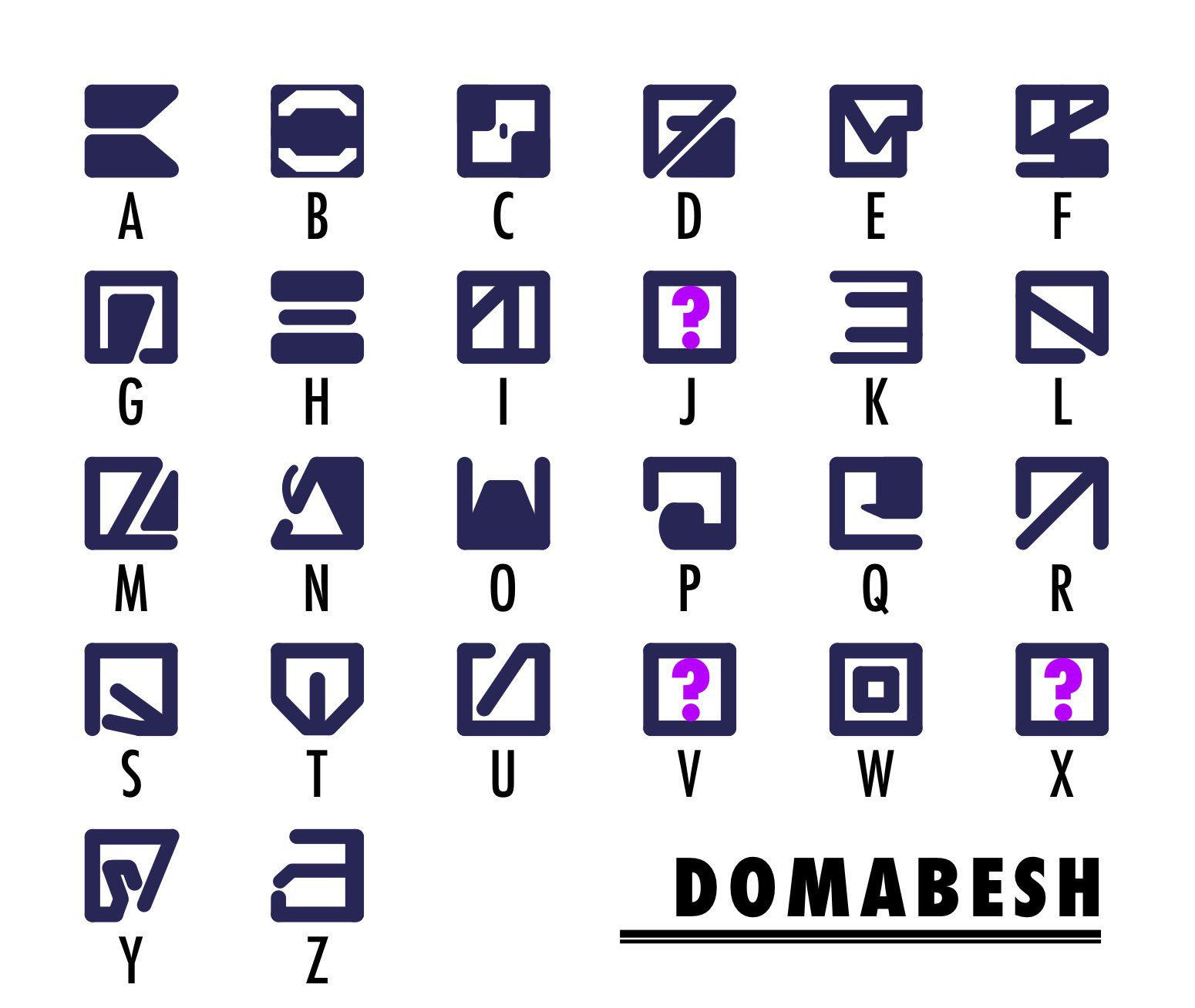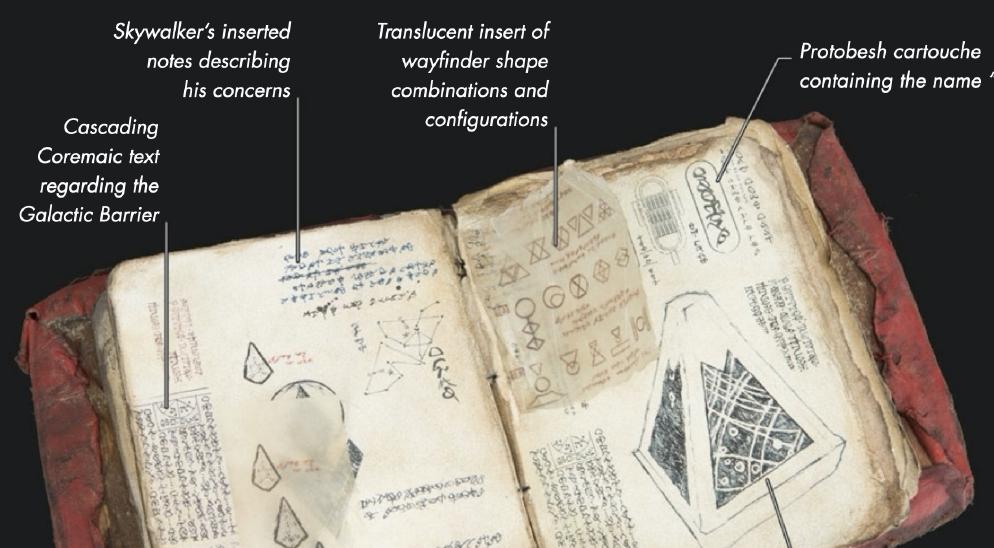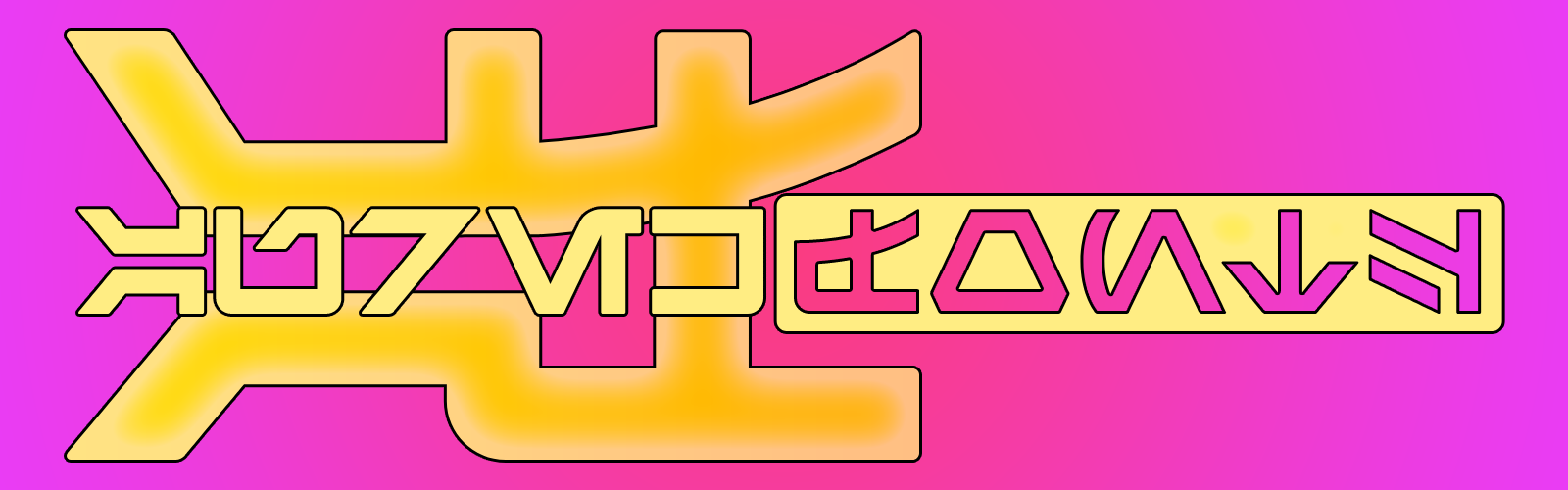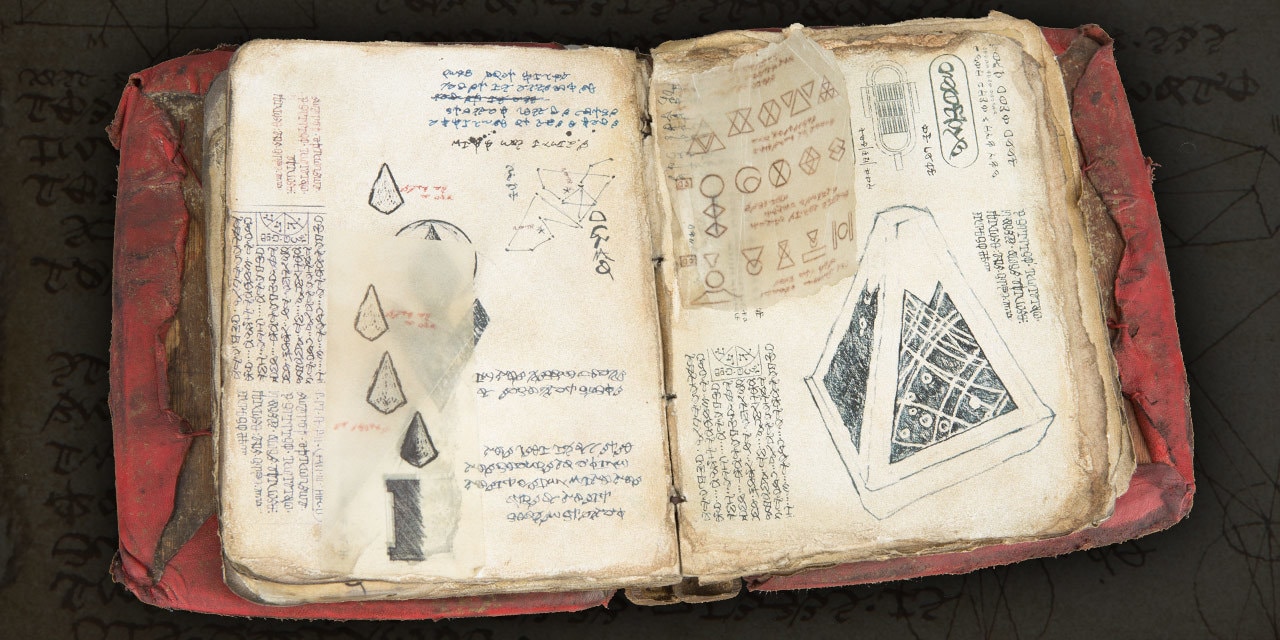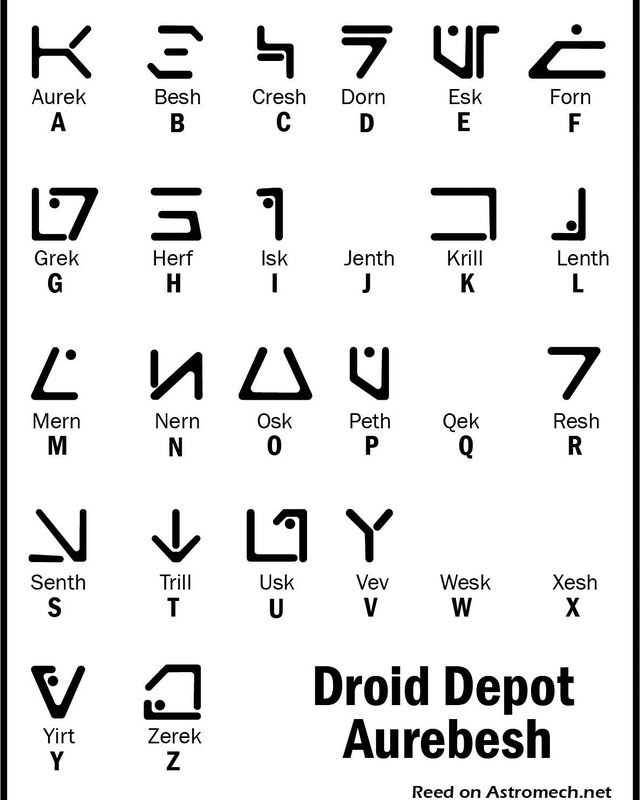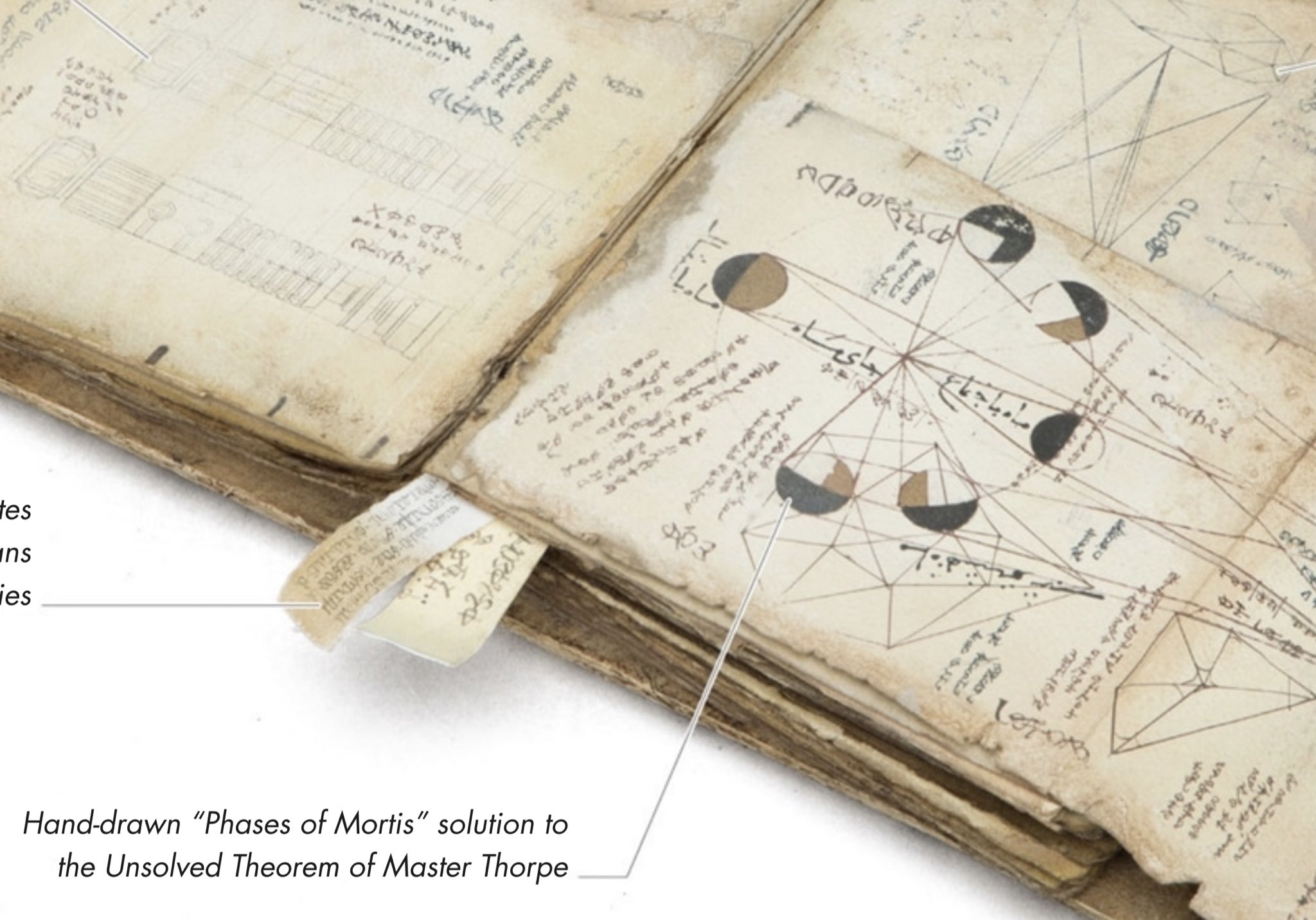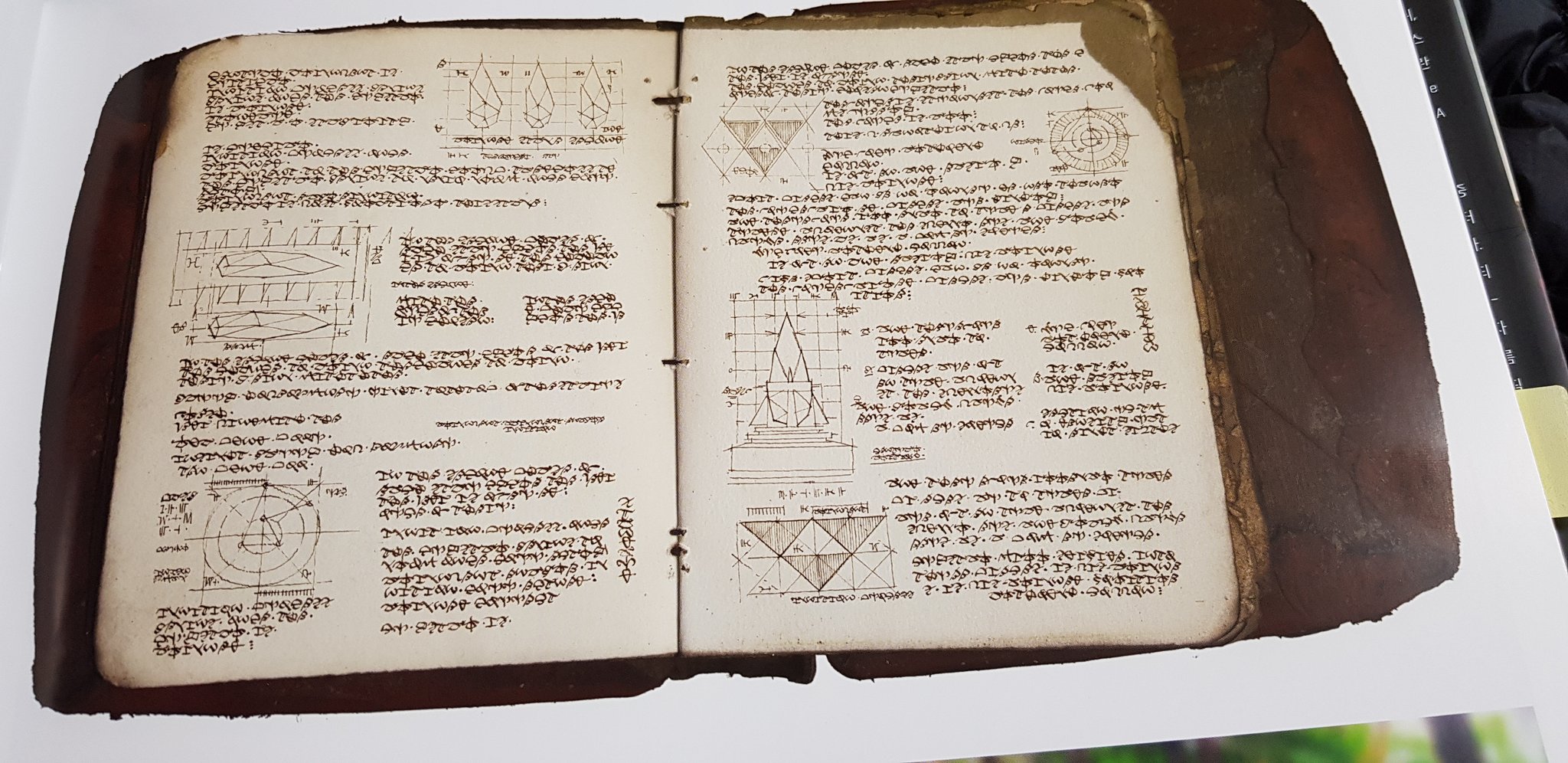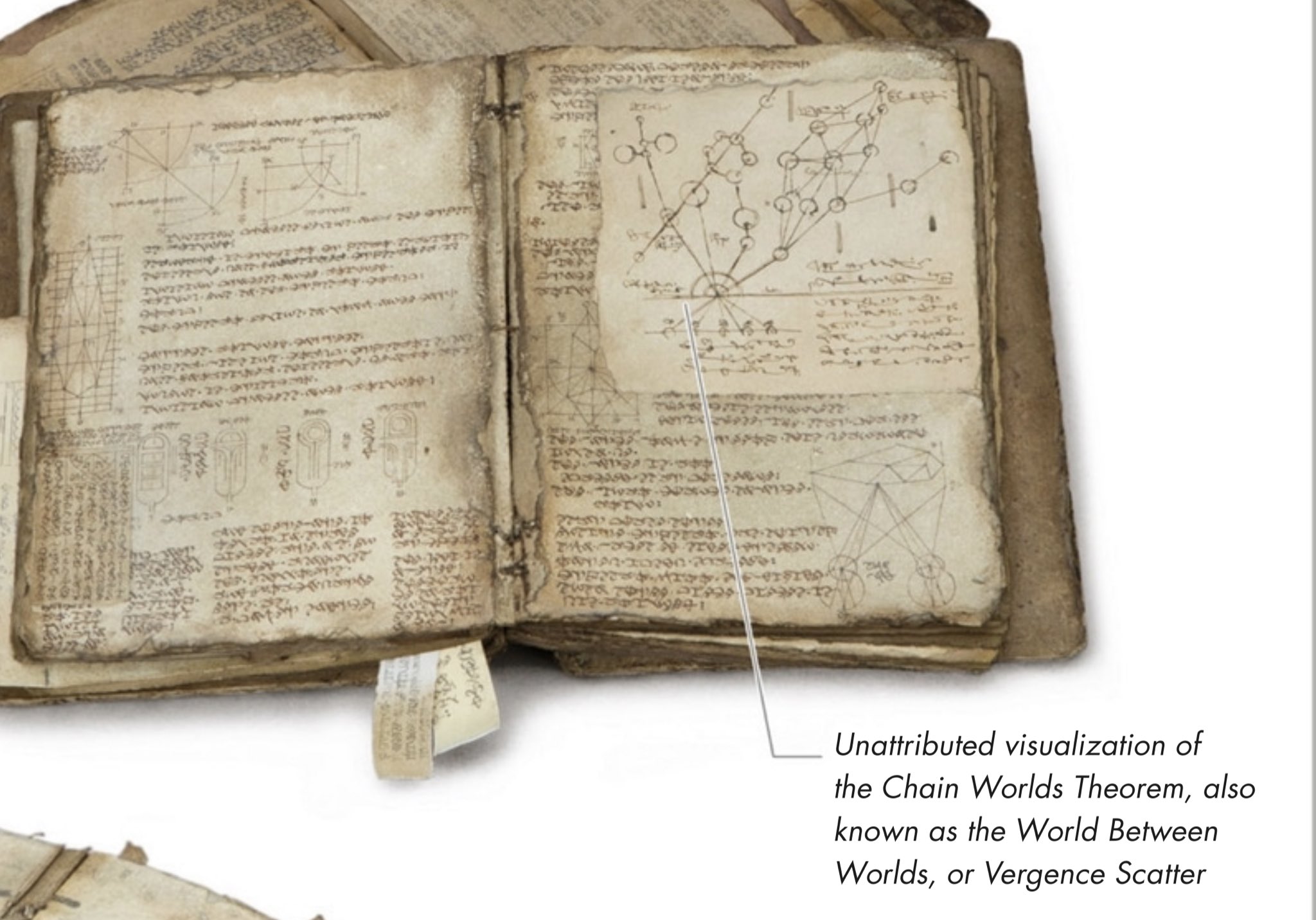
Most Accurate & Most Obscure Aurebesh Fonts?
So I'm working on a project to document and provide a resource for "Aurebesh" fonts and other fonts seen in the Star Wars universe. (The above is Sacul Basic.)
A lot of fans have created a lot of fonts over the years, so I'm trying to collect them and put them all in one place. Obviously this is not a one-person job, and I need help tracking some fonts down, and a lot of help determining which ones are the most screen-accurate.
The first Aurebesh font out there was from the SW Monopoly game.
Possibly predating that was The Star Wars Roleplaying Game by West End Games.
There have been variations in some of the letters, numbers and punctuation as well as stroke size and even hand written.
Galaxy's Edge has hand outs so you can read the signs.
Other fonts include those seen in the Dark Forces games (Dark Katarn), Naboo (Futhark, Futhork), Hutt (Huttese, Nal-Huttese), Trade Federation, Mandalorian, Ewok, McQuarrie art (Yavin 4 Temple - Metal Rebel), Sith.
For Sith there is the original "Sith Prophecy" and the later visual dictionary holocrom reversed Aurebesh.
I'm still waiting for the other fonts used in Rogue One and Galaxy's Edge.
2 of the fonts in R1
Seeing a lot of handwritten material from the new sacred Jedi texts too: Protobesh and Coremaic - although much of the source material is too blurry to make out any distinct characters...I will try and upload what I have found a little later today.
The first Aurebesh font out there was from the SW Monopoly game.
Possibly predating that was The Star Wars Roleplaying Game by West End Games.
There have been variations in some of the letters, numbers and punctuation as well as stroke size and even hand written.
Galaxy's Edge has hand outs so you can read the signs.
Other fonts include those seen in the Dark Forces games (Dark Katarn), Naboo (Futhark, Futhork), Hutt (Huttese, Nal-Huttese), Trade Federation, Mandalorian, Ewok, McQuarrie art (Yavin 4 Temple - Metal Rebel), Sith.
For Sith there is the original "Sith Prophecy" and the later visual dictionary holocrom reversed Aurebesh.
I'm still waiting for the other fonts used in Rogue One and Galaxy's Edge.
West Ends was first, and I've linked on my Aurebesh page to a history of it by the guy who made it up.
Rogue One: We actually have "Domabesh" from Rogue One, as best as it can be recreated at this point (J, Q, V, and X are all best-guesses, but probably wrong). We're still waiting on a font for "Dishabesh", (Enfys' helmet, lots of concept art).
Galaxy's Edge: We have 2 fonts used, but not the main Aurebesh flavor: Aurebesh_english is used for the English text throughout the park, while Aurebesh_droid can be found at the Droid Depot.
I'm happy to say that we have pages in the works for most of the fonts/scripts you mentioned above.
All from the RoS Visual Dictionary, the last 2 are from the Art Of book I believe.
The "Cascading Coremaic" text seems to have been reused-verbatim in multiple places, which may make defining the individual glyphs a little easier. thanks!
I count only 22 or so unique characters of the Protobesh...though there may be more lost in the script given some closer inspection.
The R1 Aurebesh is interesting and I found the Domabesh image a year or so ago (sorry, cannot recall the source to credit).
Droid Depot is seen around GE. Reed over on Astromech posted what he had compiled a while back.